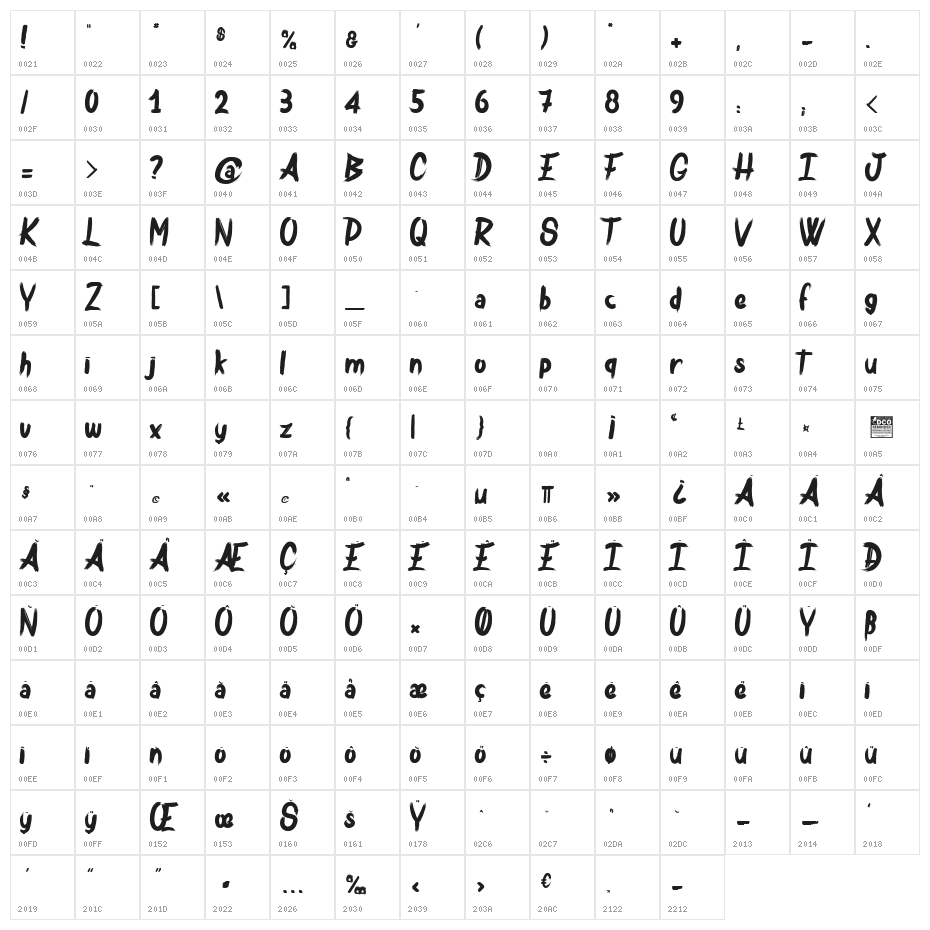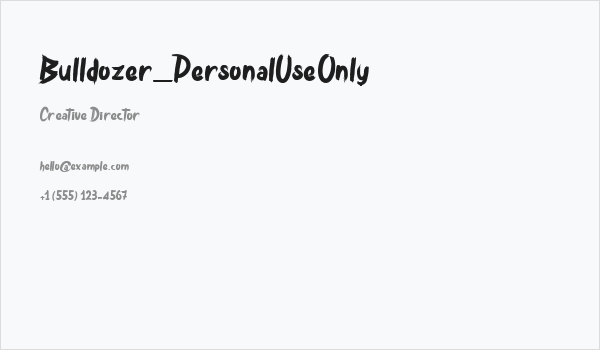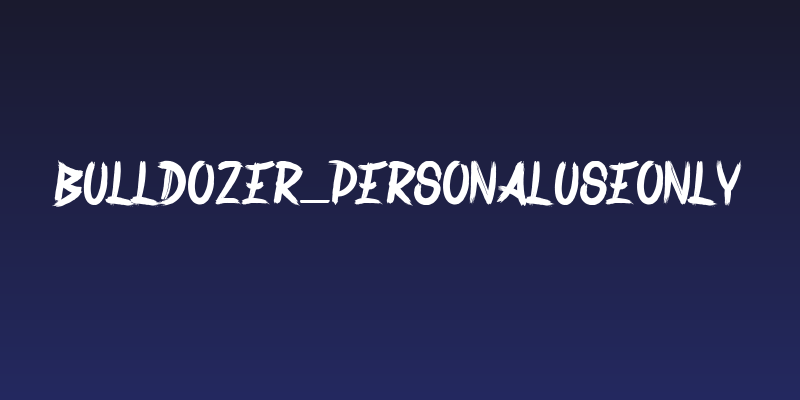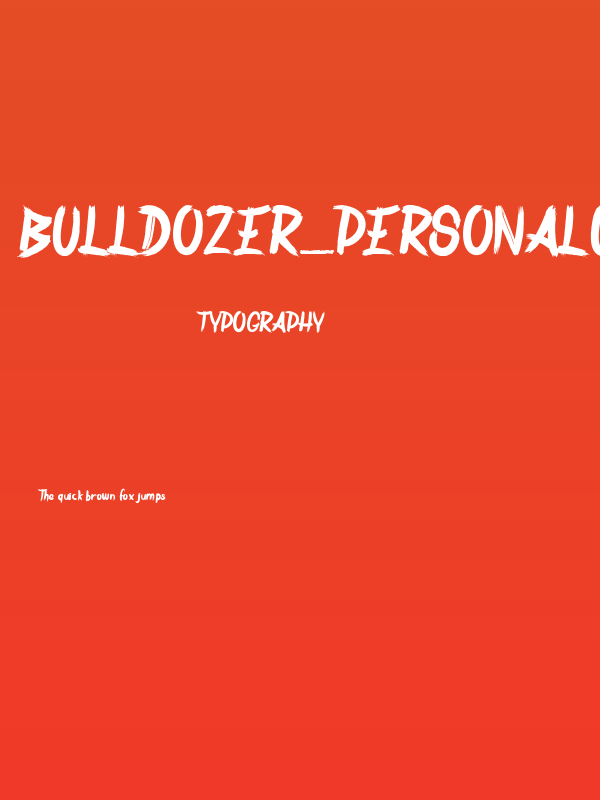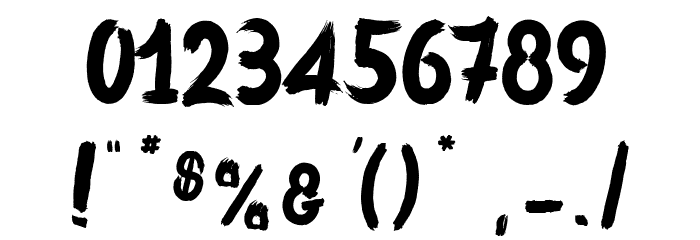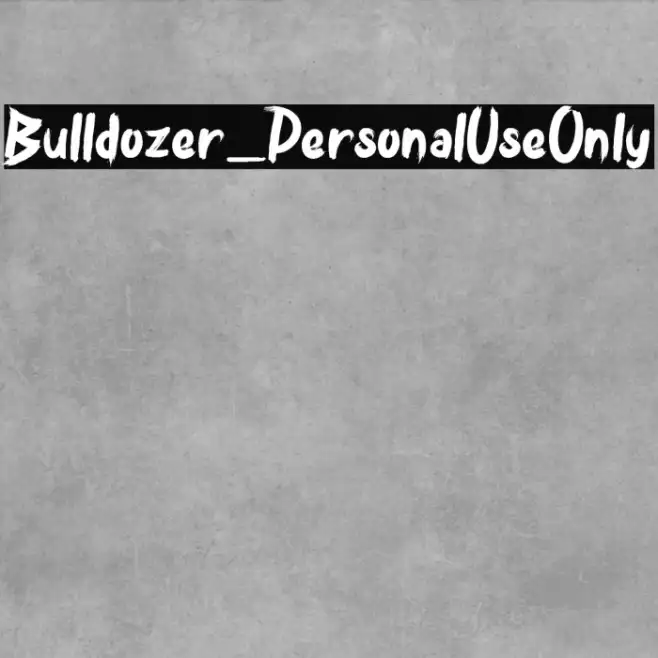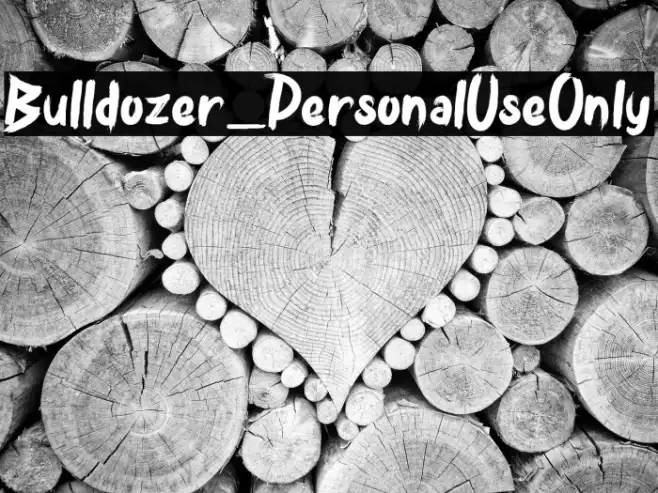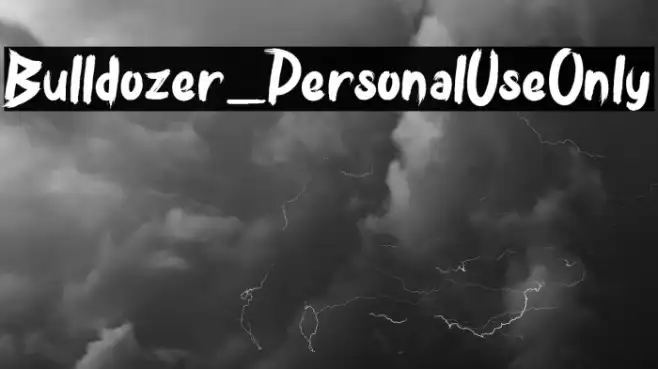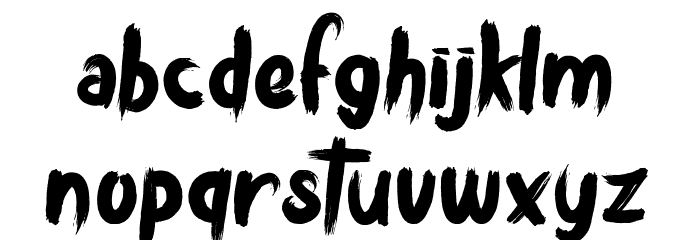
Bulldozer_PersonalUseOnly Font
Bulldozer_PersonalUseOnly Description
This font features a bold, brush-stroke style that exudes energy and dynamism. The characters are crafted with a rough, hand-painted appearance, giving them a raw and expressive quality. The uppercase and lowercase letters maintain a consistent style, with thick strokes and slightly irregular edges that enhance the handmade feel. The numbers and special characters follow the same aesthetic, ensuring a cohesive look across all text elements. This font's unique style makes it stand out, capturing attention with its artistic flair.
| Proposed Projects | Ideal for projects that require a bold, artistic touch, such as posters, album covers, and branding for creative industries. |